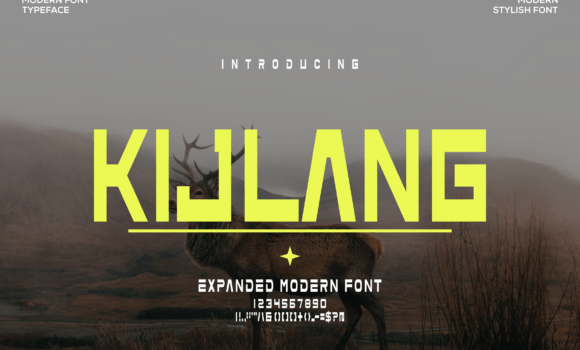
Kijlang Font – Free Download Introduction to Kijlang Font Presenting our new product **Kijlang Font** – Modern Font is a bold and authentic display font. 📸 Preview Gallery 4 images 📌 Product Name Kijlang Font